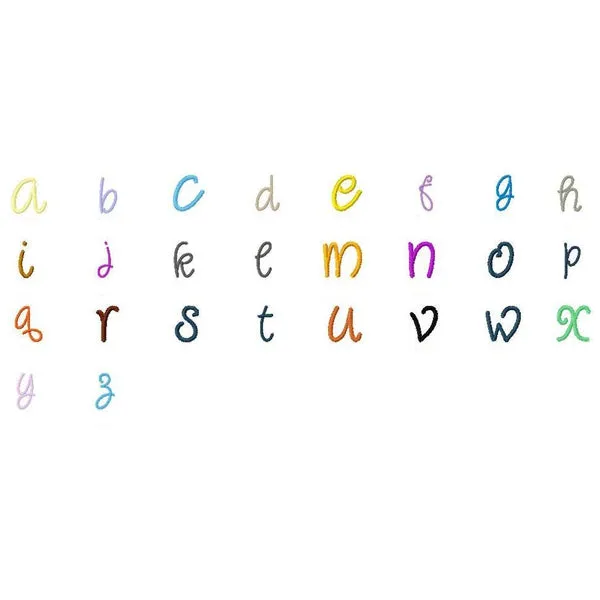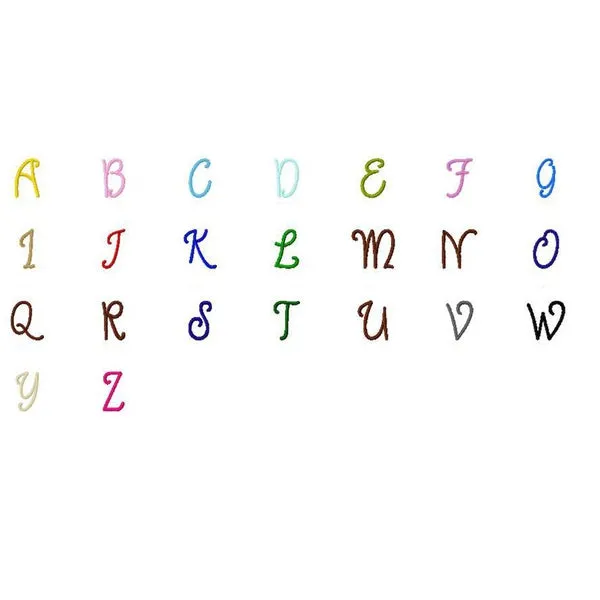
Caroline Embroidery Font
Includes upper case satin stitch letters in 1, 2, and 3 inch sizes.
Also includes lower case satin stitch letters for each upper case size. (These are size proportionate to the upper case letters so that you can use them for names)